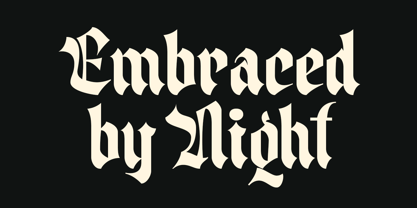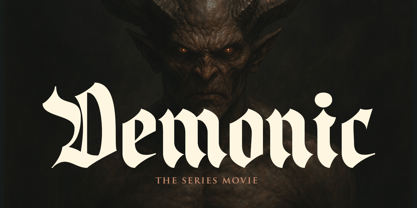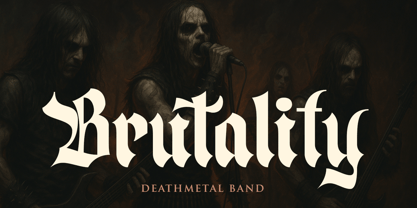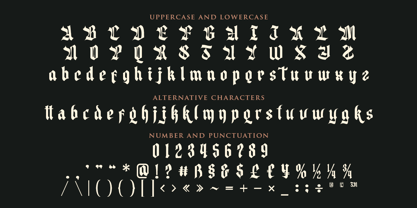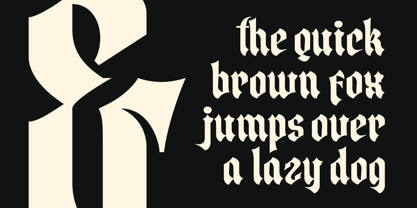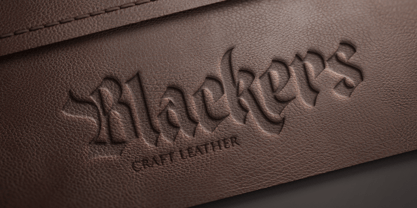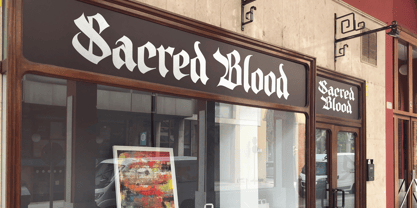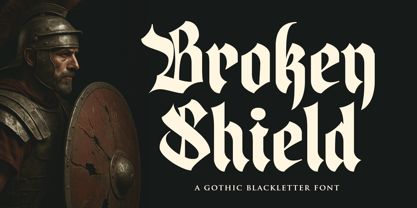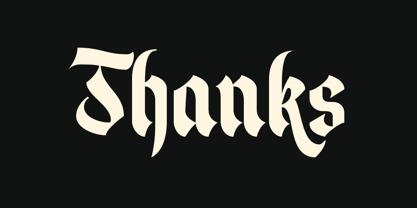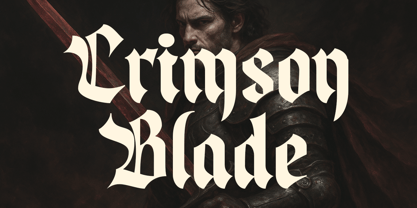
Broken Shield
by Blankids
The Broken Shield Font Family was designed by Bangkit Tri Setiadi and published by Blankids. Broken Shield contains 1 styles.
Hello, awesome people! This time, we have a new font called Broken Shield a Gothic Blackletter Font by Blankids Studio.
Broken Shield a Gothic Blackletter Font is made for any professional project branding, such as logotype, watermarks, poster, branding, promotions, product packaging, etc. Every letter has a blackletter style design.
Broken Shield font includes a full set of blackletter uppercase and lowercase letters, numerals and punctuation. This font has a blackletter style. See the previews above to get some inspiration on how to use them. Happy designing!